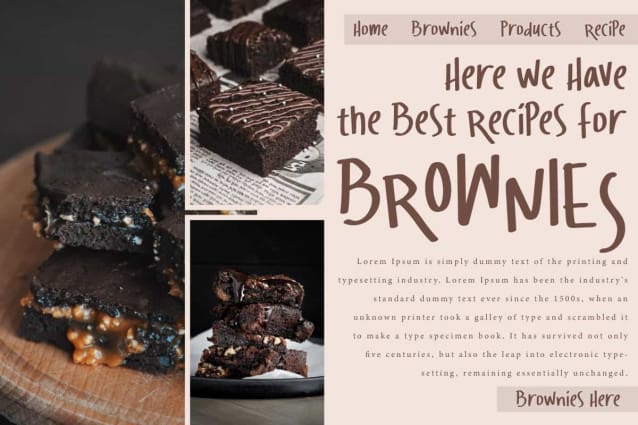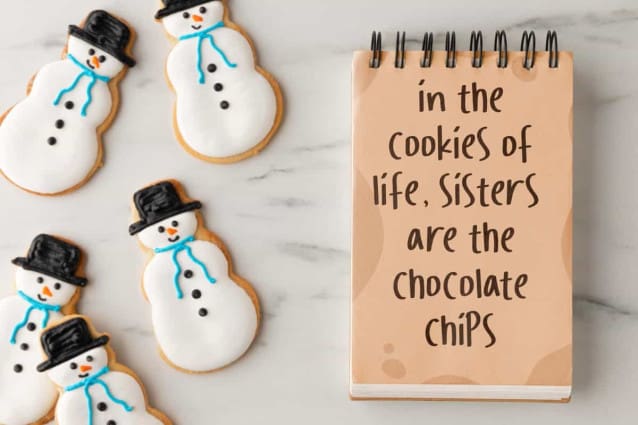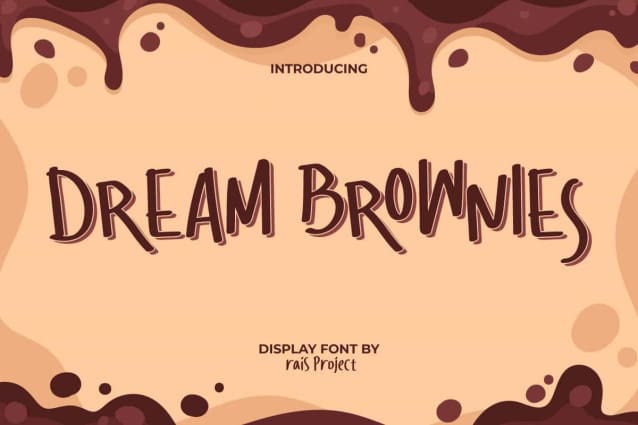
Dream Brownies Font
Dream Brownies Font is a stylish simple yet charm display font with handwritten style. This font has a simple style so it can provide a casual charm so it can be used in many design concepts, such as brand image, calendar, cover, custom design, invitation, label, menu, poster, product packaging, quotes, stationery, web, and more!